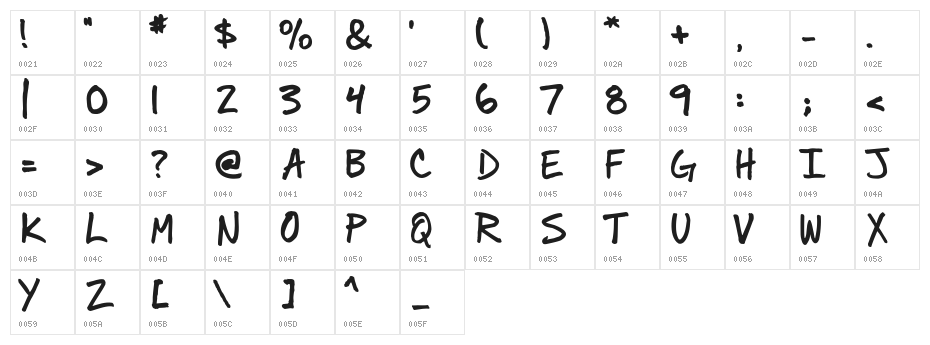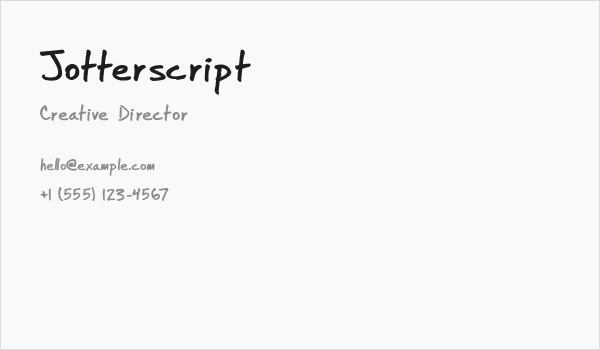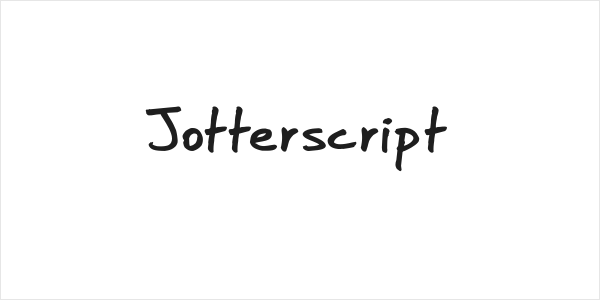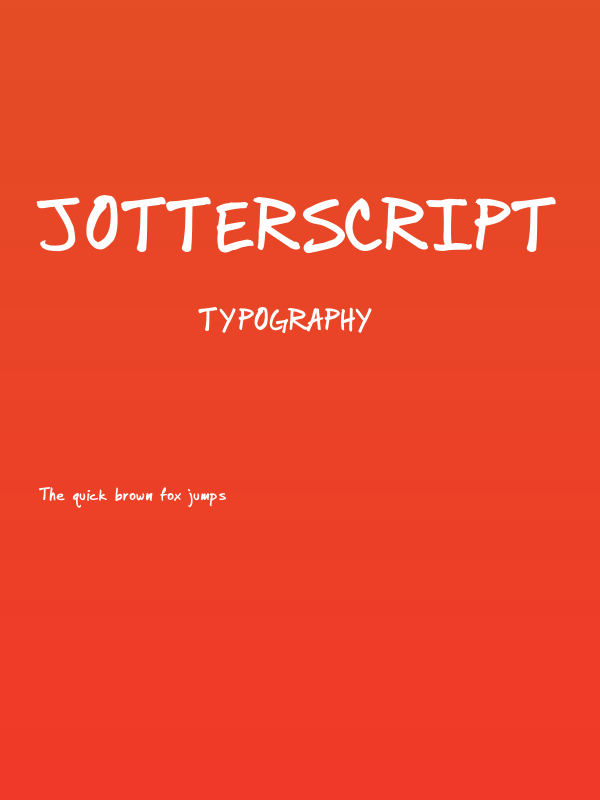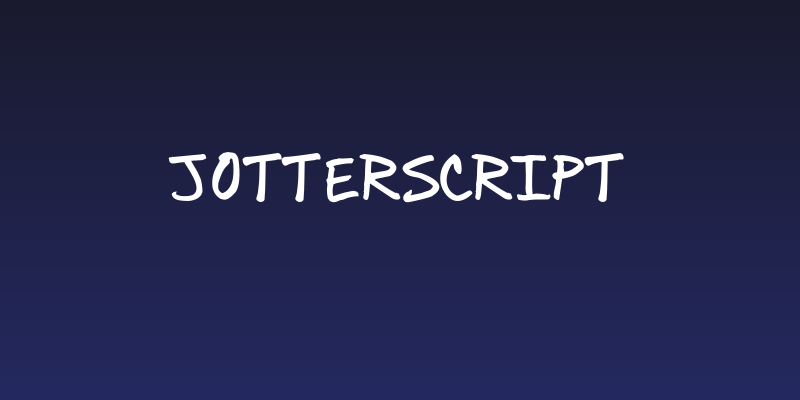
Jotterscript Font
Jotterscript Description
This playful and energetic font features a handwritten style that exudes a casual and friendly vibe. The characters are bold and slightly irregular, giving them a dynamic and spontaneous appearance. The uppercase and lowercase letters maintain a consistent flow, while the numerals and special characters complement the overall aesthetic. The strokes are thick and uniform, providing a strong presence on the page. This font is perfect for projects that require a personal touch, such as invitations, greeting cards, or creative branding. Its informal style makes it ideal for conveying warmth and approachability.
| Proposed Projects | Ideal for invitations, greeting cards, creative branding, and any project needing a personal touch. |